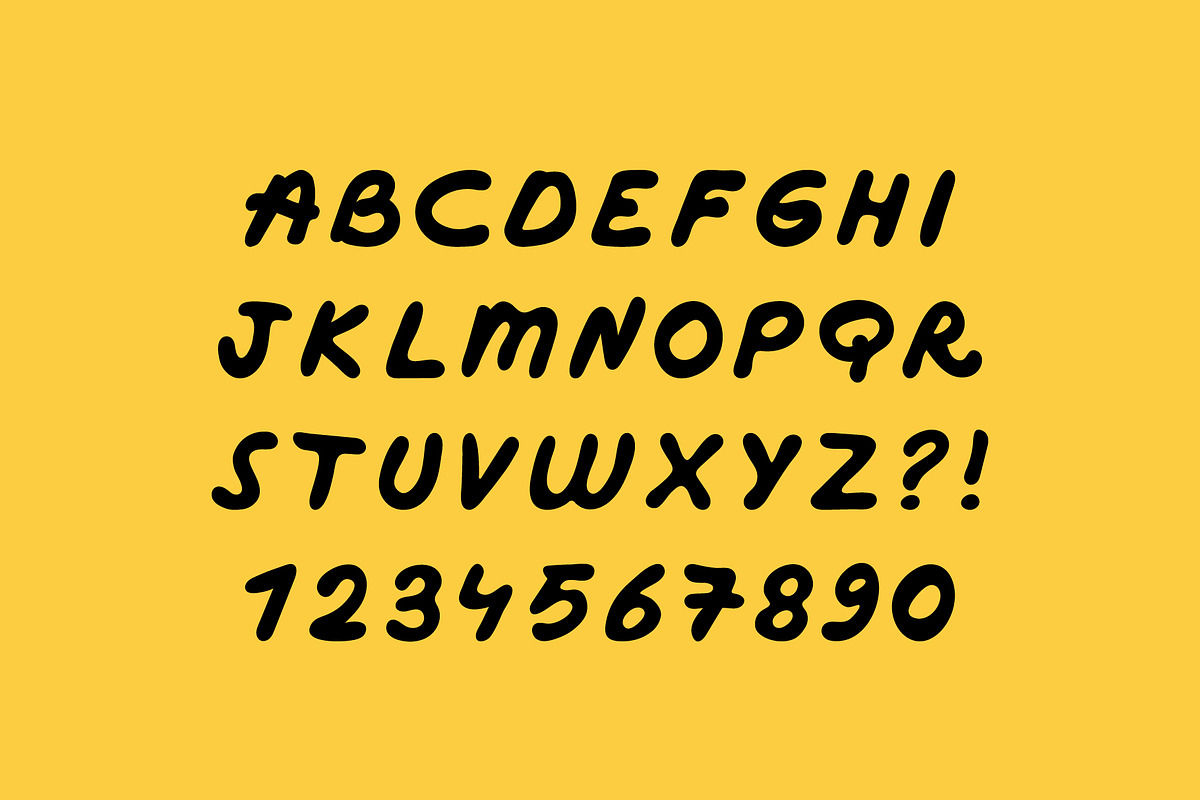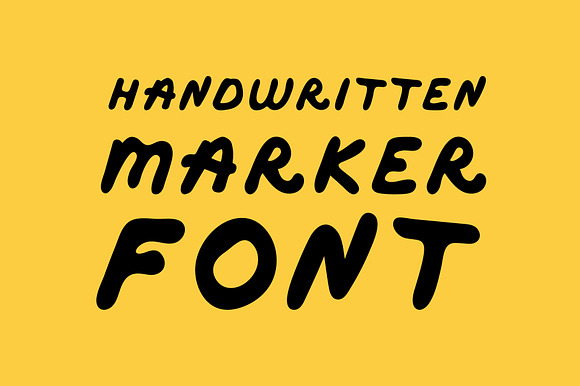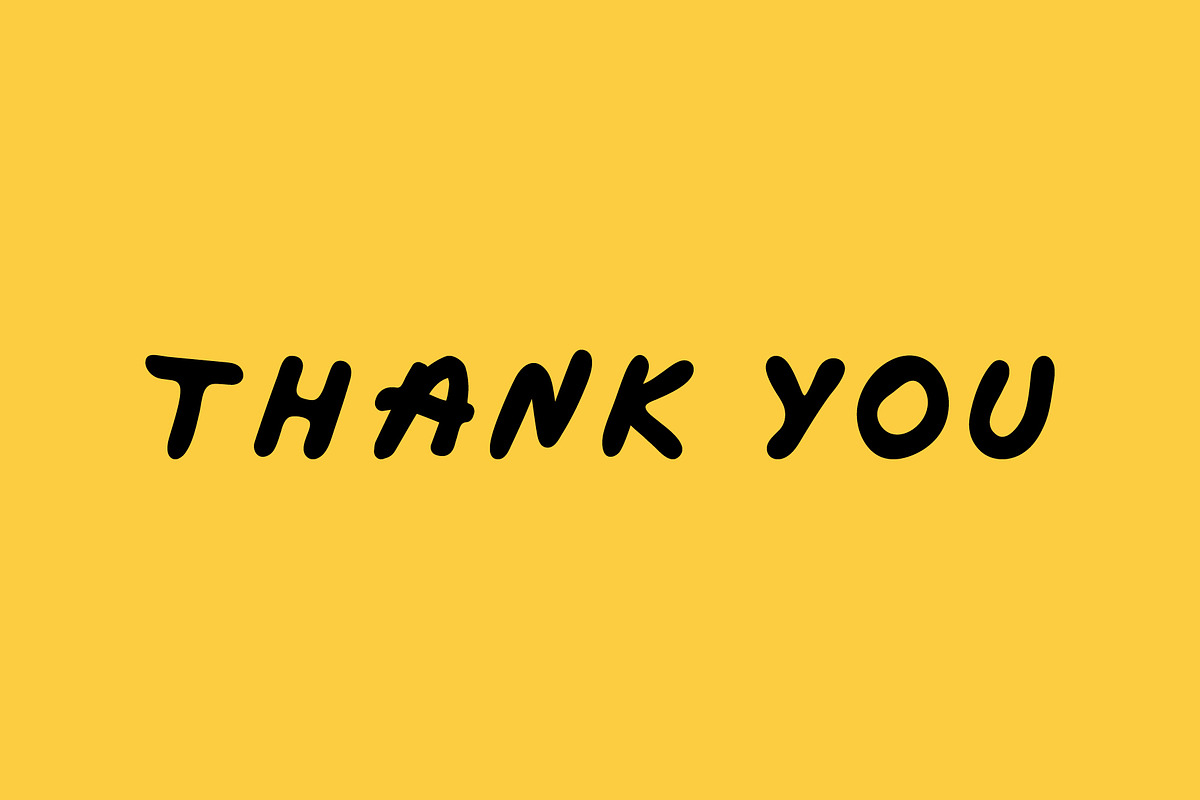
Handwritten Marker Font
Why Handwritten Marker Font is worth a look
Handwritten Marker Font by Krafti Lab fits naturally into Branding, posters, packaging, typography.